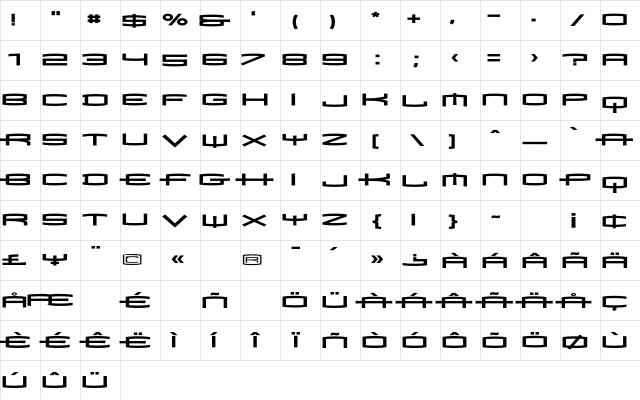
Mata Bold
Design Context for Mata
Mata is a composed and adaptable typeface that performs quietly and consistently across a wide range of design contexts. Its bold stroke weight gives it real presence on the page.